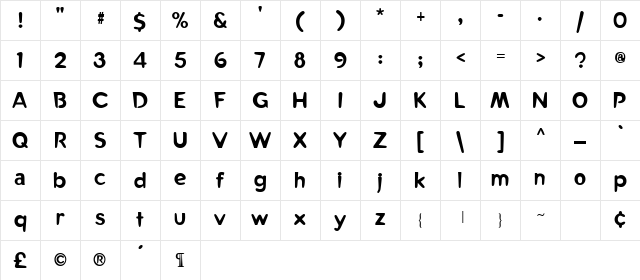
RayGun Regular
Design Context for RayGun
RayGun is a composed and adaptable typeface that performs quietly and consistently across a wide range of design contexts.